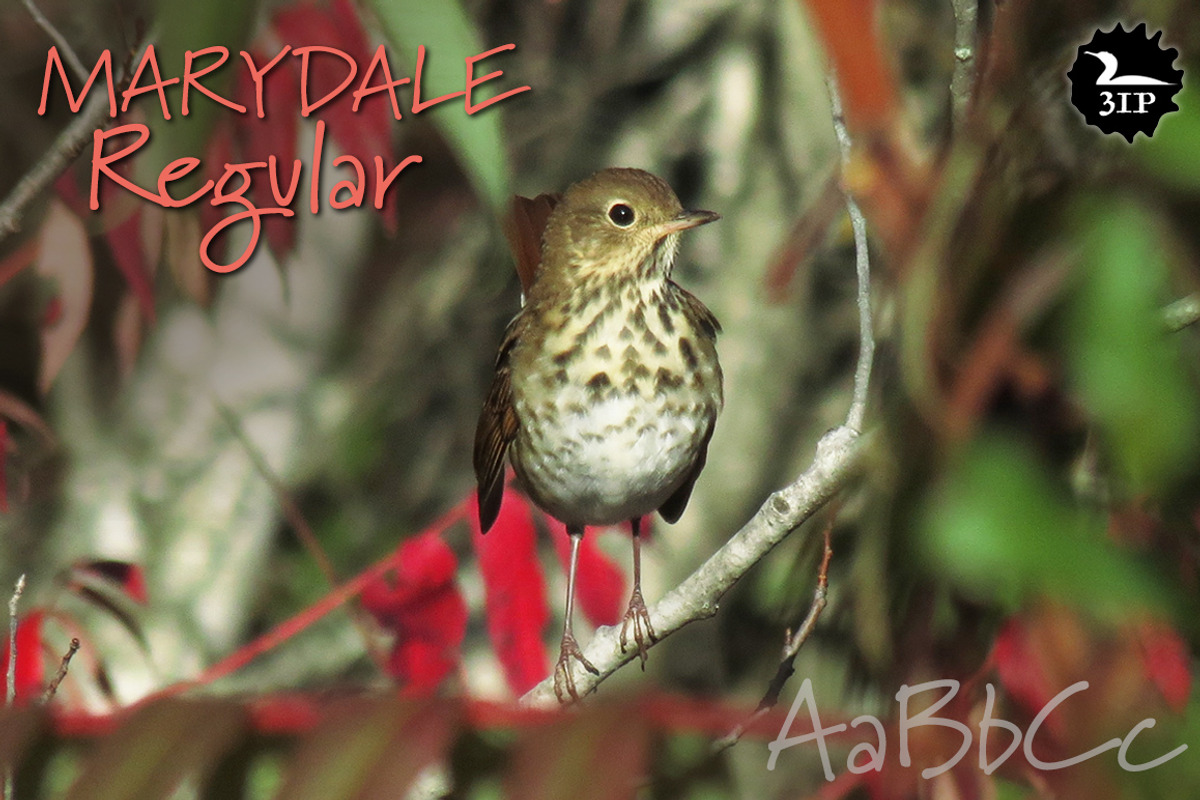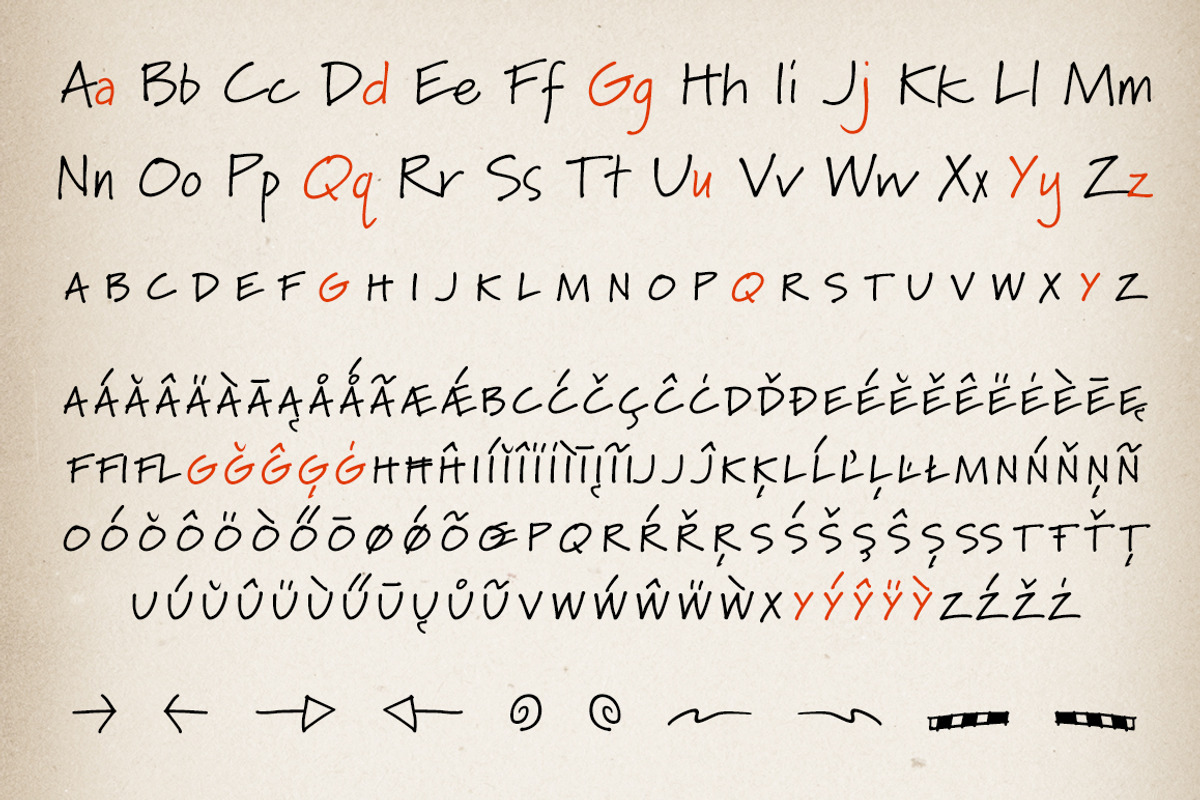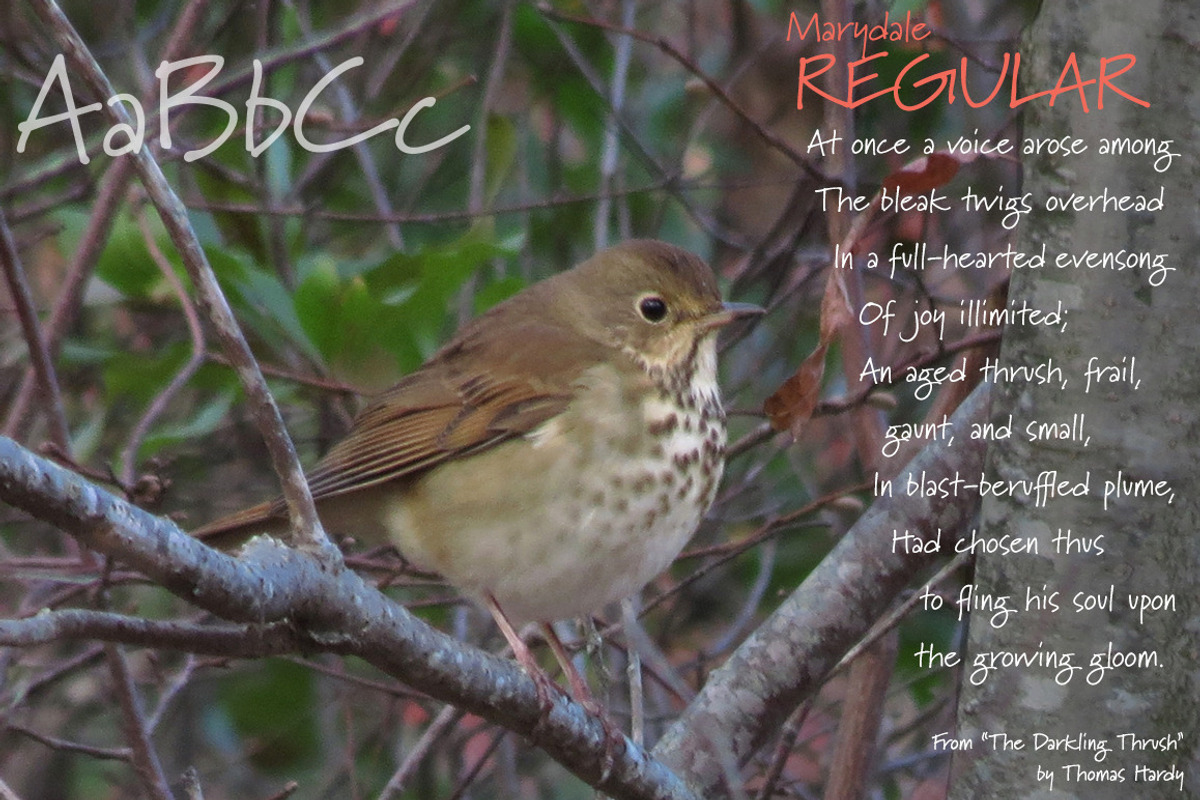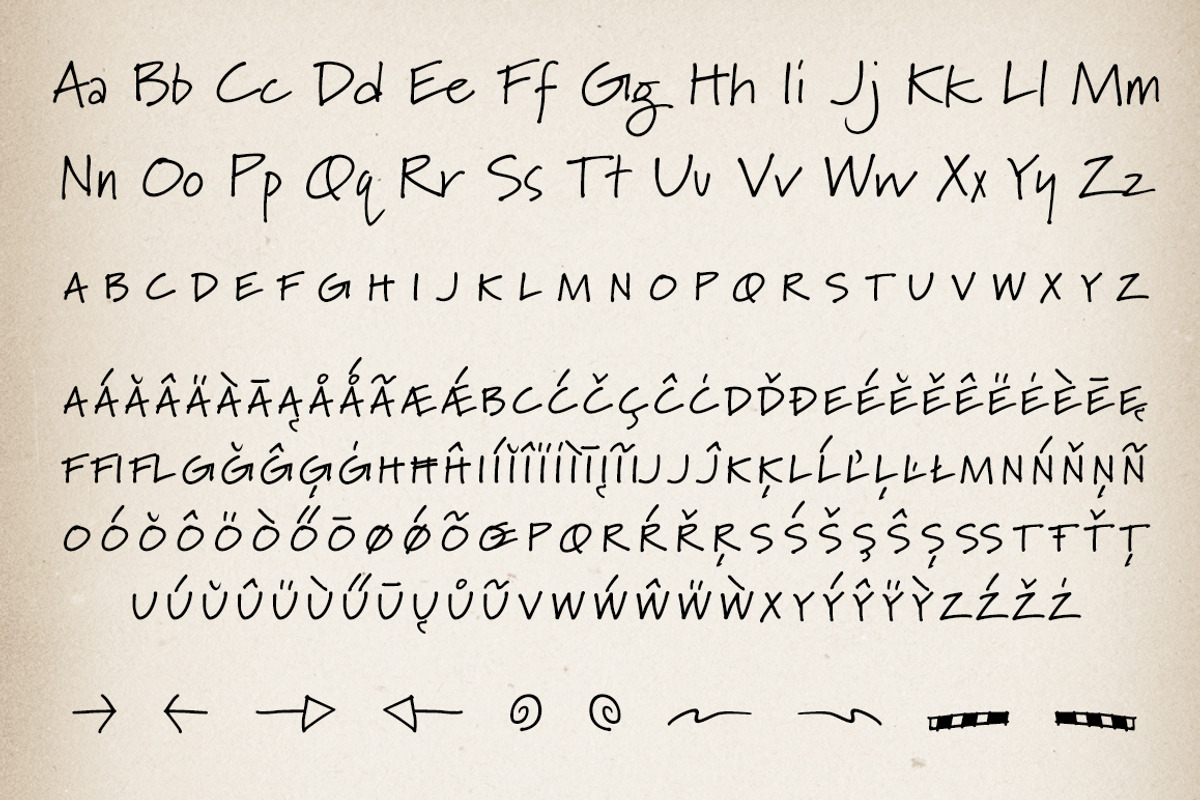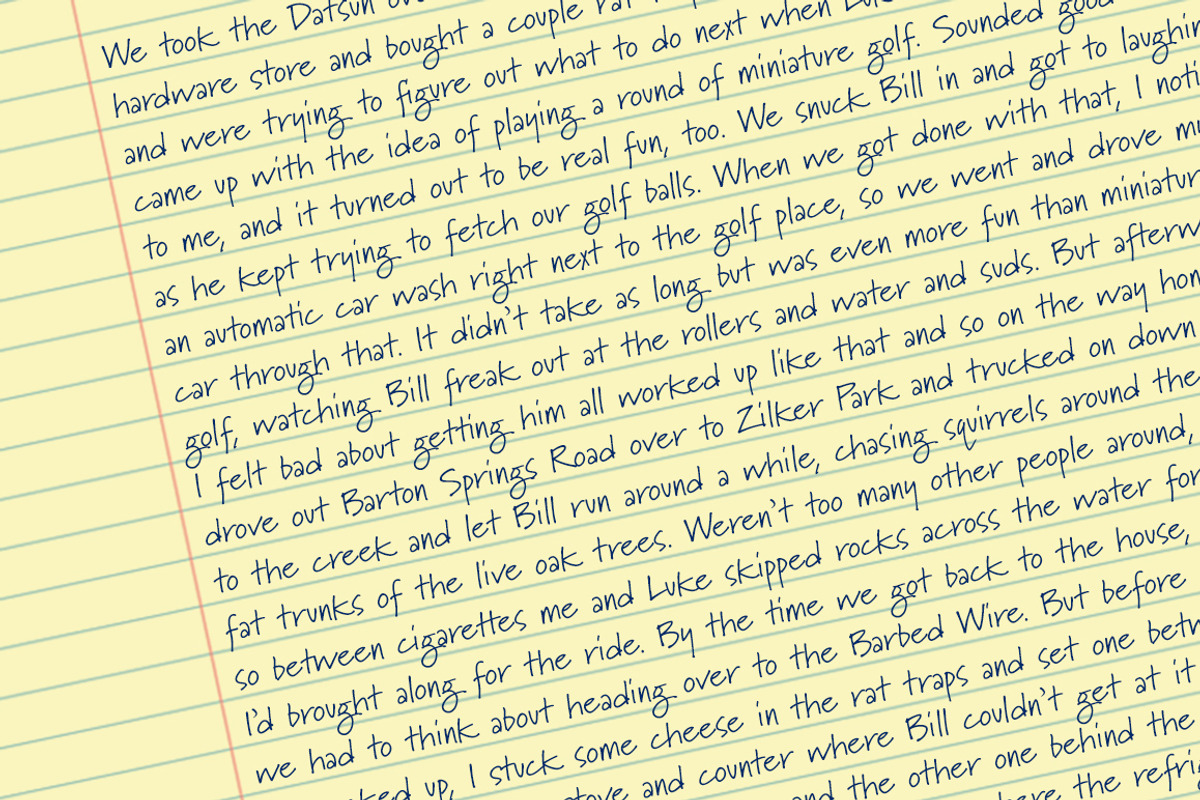
Marydale Regular
Marydale Regular is the lightest of three weights in the Marydale casual handlettering family. Like the others, it has numerous OpenType features, including small caps, dozens of ligatures, and a stylistic set that substitutes a few less quirky letterforms (duplicating the so-called "Marydale Inspired" version of the font)—as well as full support for Central/Eastern European, Greek, and Cyrillic languages. Marydale comes with more than 1,000 glyphs in all.